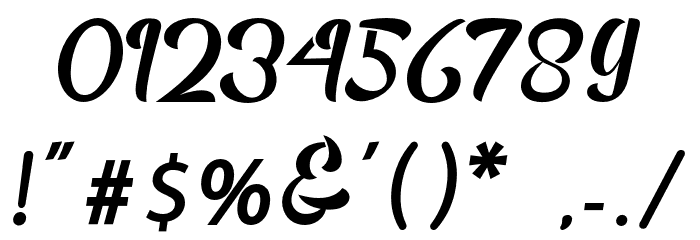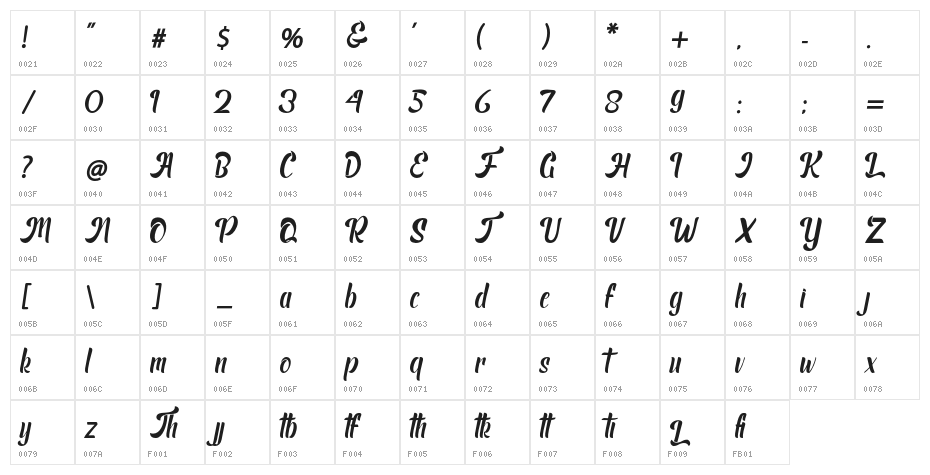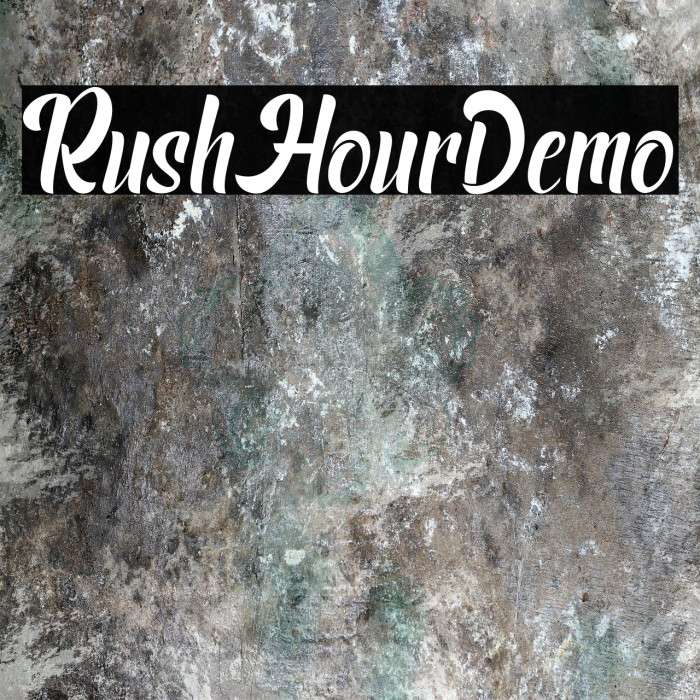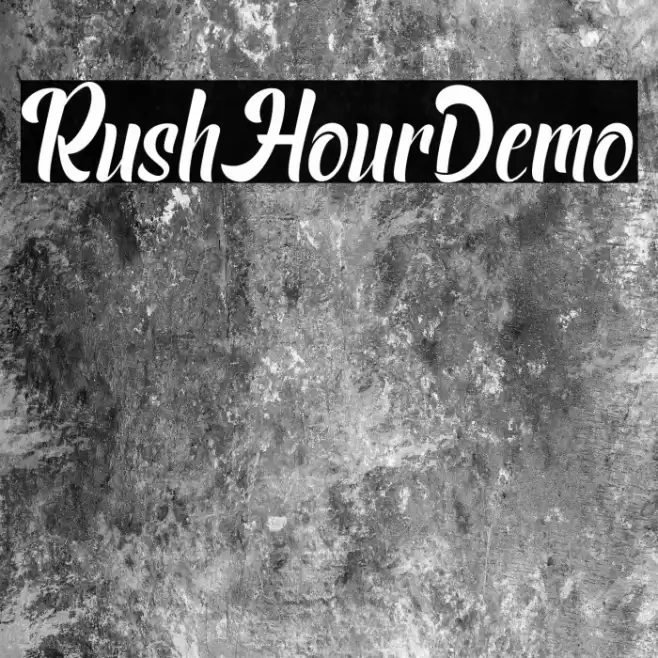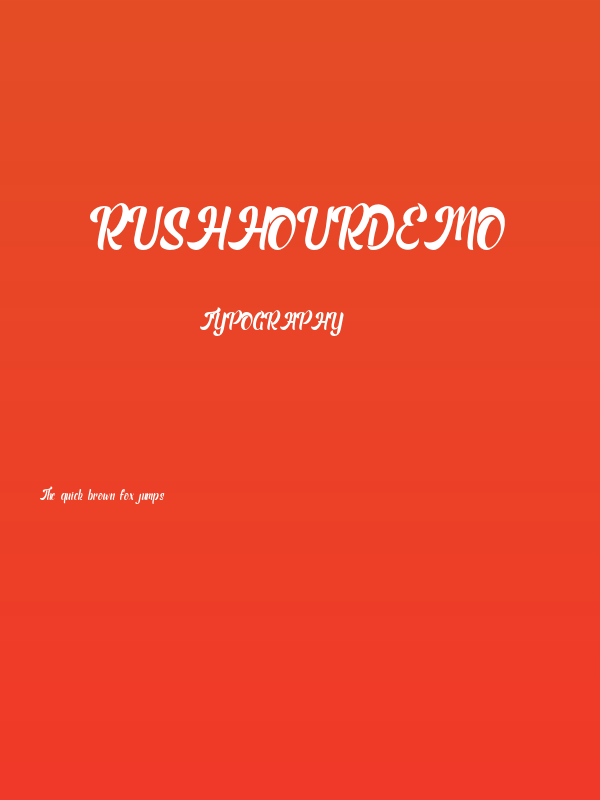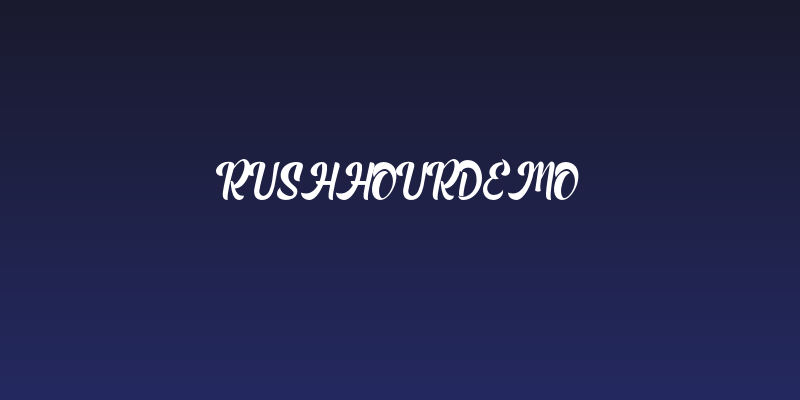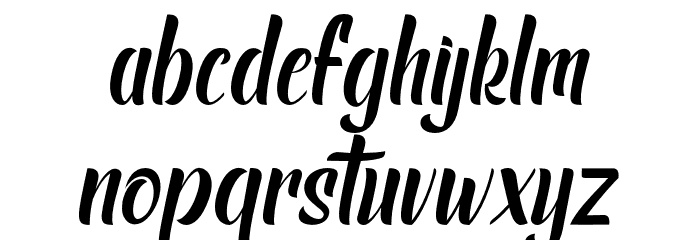
RushHourDemo Font
RushHourDemo Description
This font features a dynamic and energetic script style, characterized by its flowing, cursive letterforms. The uppercase letters exhibit a bold and confident presence, with sweeping curves and elegant flourishes. The lowercase letters maintain a consistent rhythm, enhancing readability while preserving the font's artistic flair. Numbers and special characters are crafted with the same attention to detail, ensuring a cohesive look across all text elements. The overall design is both playful and sophisticated, making it suitable for a variety of creative applications.